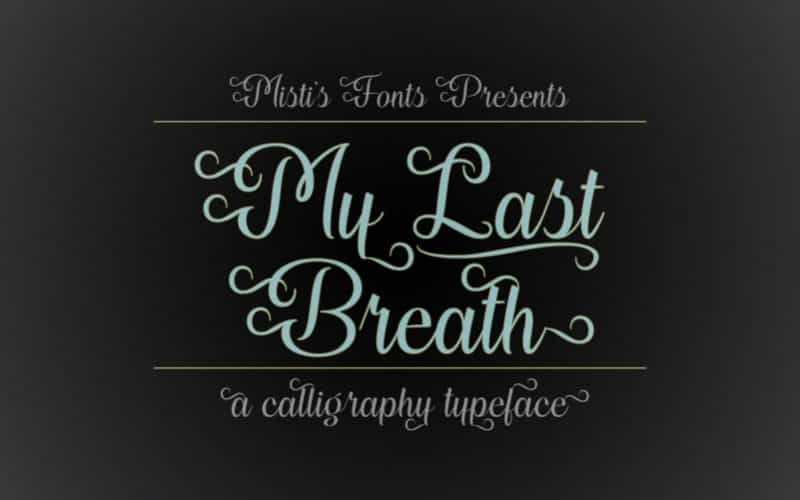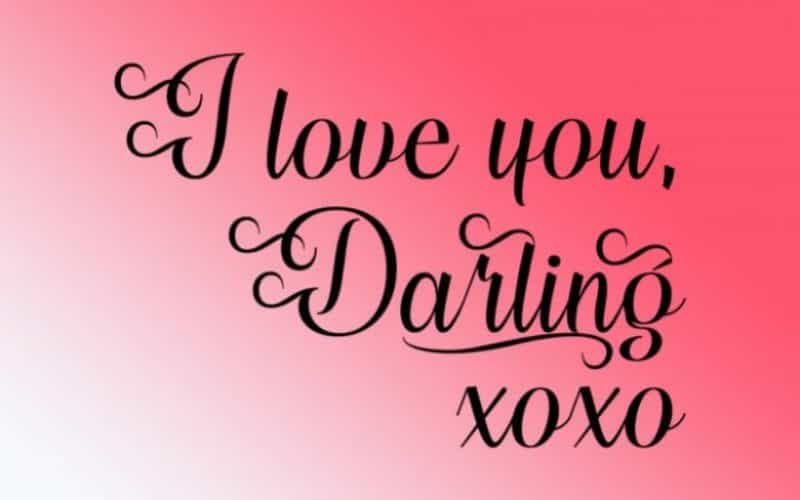
My Last Breath is a typical clean font typeface that carries a theatrical feel to it and would be perfect for any script projects. Ideal for weddings, corporate images, products’ labels and much more. Provides swashes and alternates that will help refine the appearance of designs!